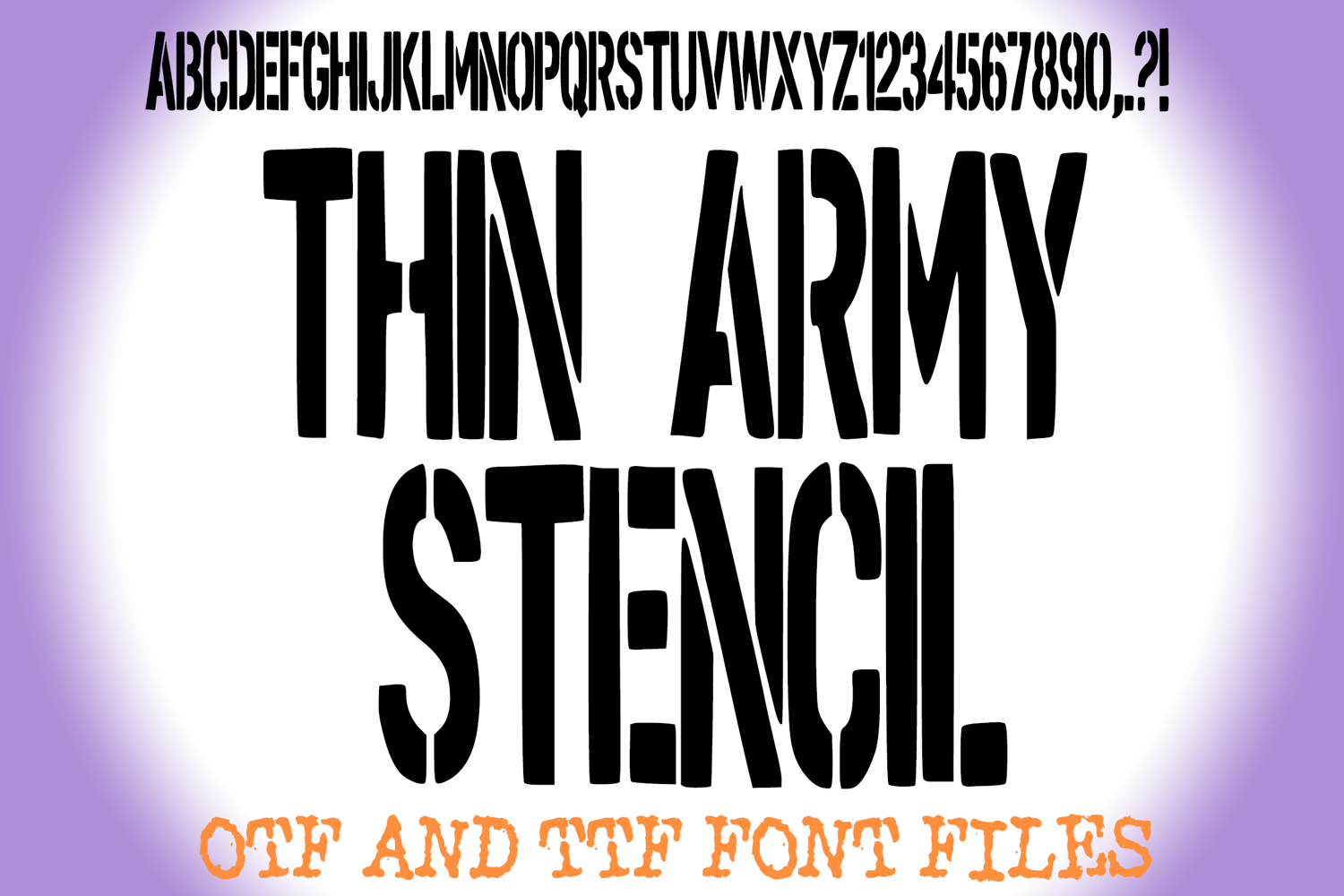
Thin Army Stencil Lettering ABC Font Typeface Alphabet OTF
Stand tall and bold with Thin Army Stencil Font, a modern twist on the classic military stencil style. This clean, narrow, and impactful typeface brings a professional yet rugged edge to any design. Perfect for projects that demand precision and strength — from tactical logos and posters to apparel, packaging, and sports branding.
Thin Army Stencil Font captures the disciplined energy of military aesthetics with a sleek, streamlined form that works beautifully for both digital and print design. It’s versatile, bold, and easy to read, making it ideal for projects like recruitment posters, adventure gear branding, patriotic displays, or industrial designs.
March your typography to perfection with Thin Army Stencil Font — strong, stylish, and built for impact.